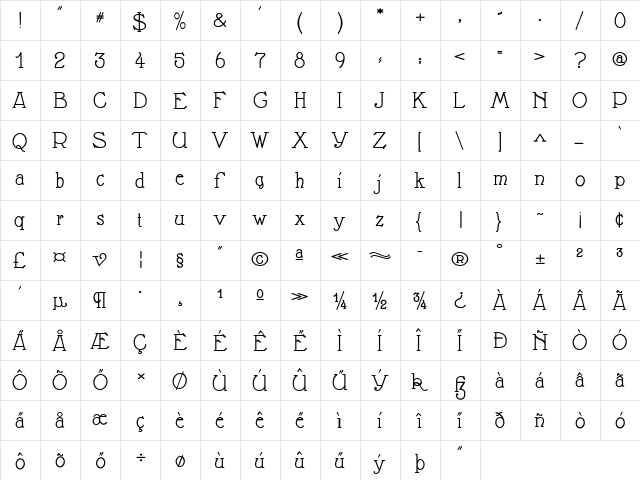
Nathan Semi Expandet Semi-expanded Regular
| Foundry | Peter Wiegel |
| Designer | Peter Wiegel |
Design Context for Nathan Semi Expandet Typeface
Nathan Semi Expandet offers clean, dependable letterforms without strong stylistic allegiance, making it a practical choice for designers who need flexibility.